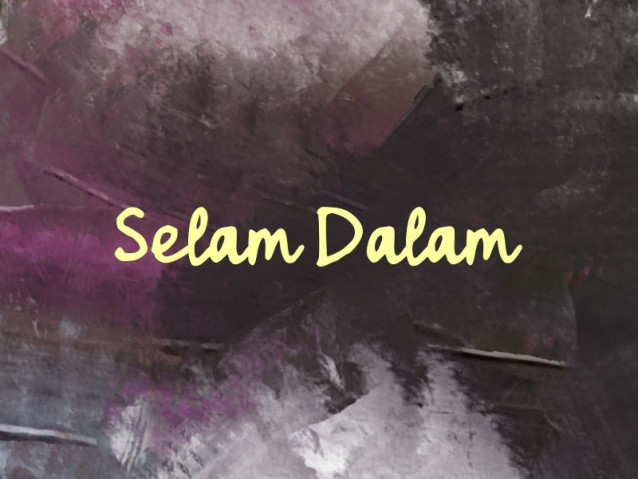
Selam Dalam Font
Selam Dalam Font is a simple and modern Script font suitable for quotes, logos, headings, titles, and many more. Use it on any of your creative projects, and your designs will become outstanding!